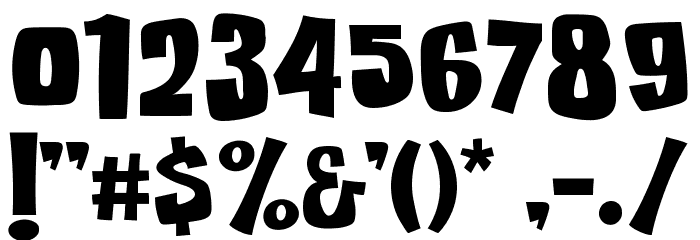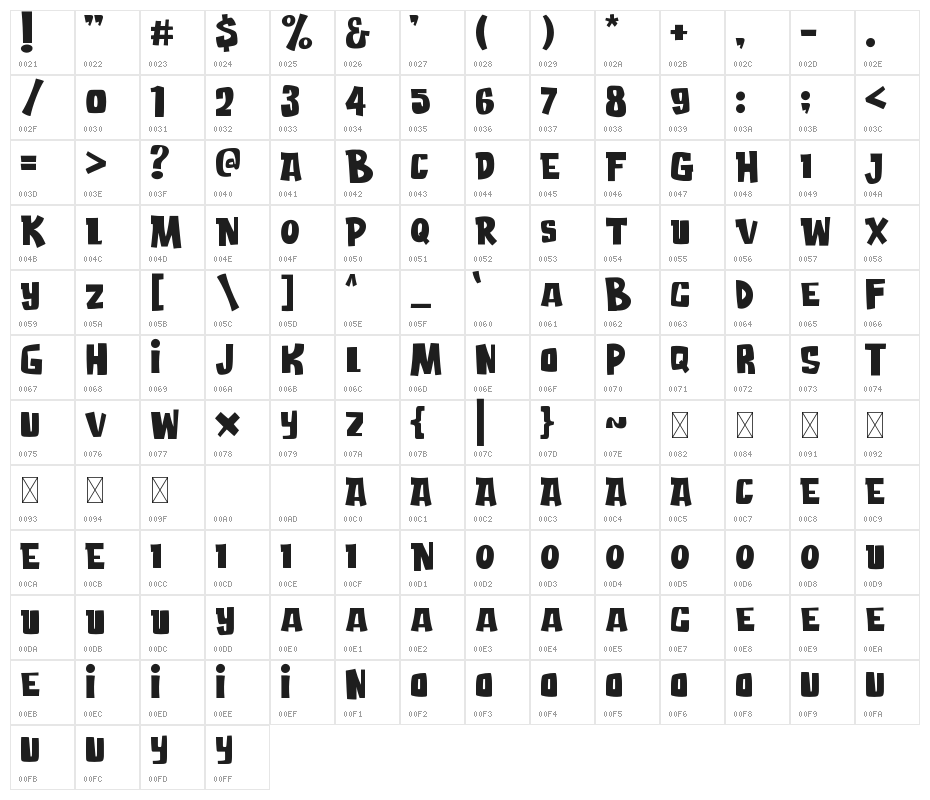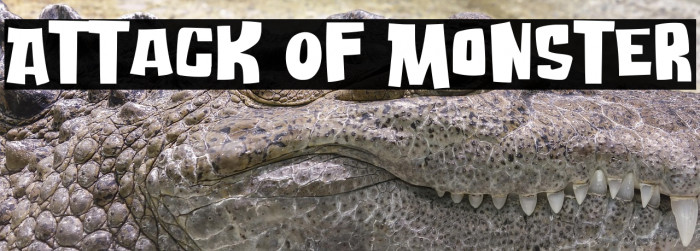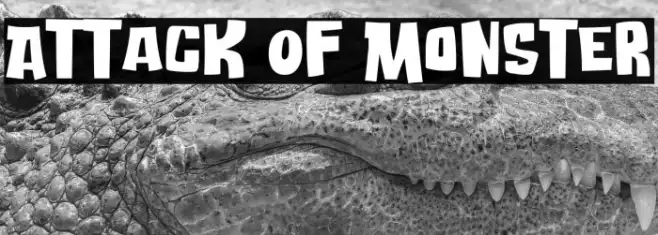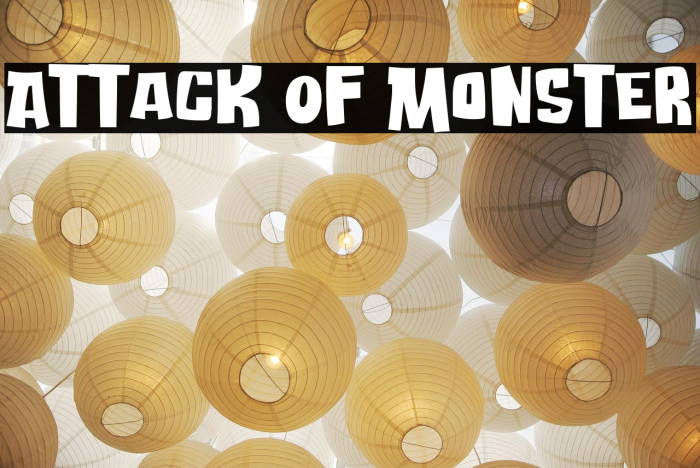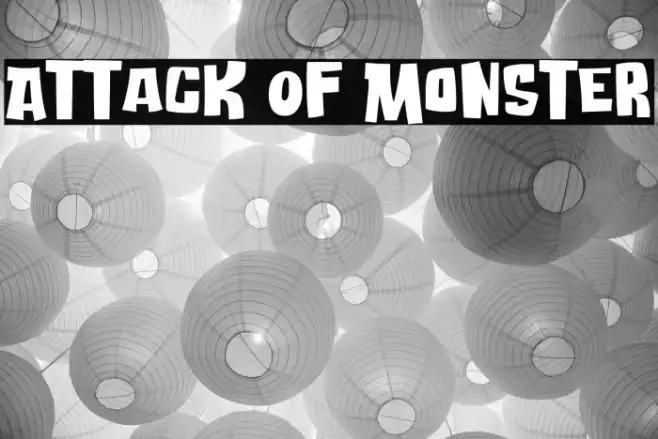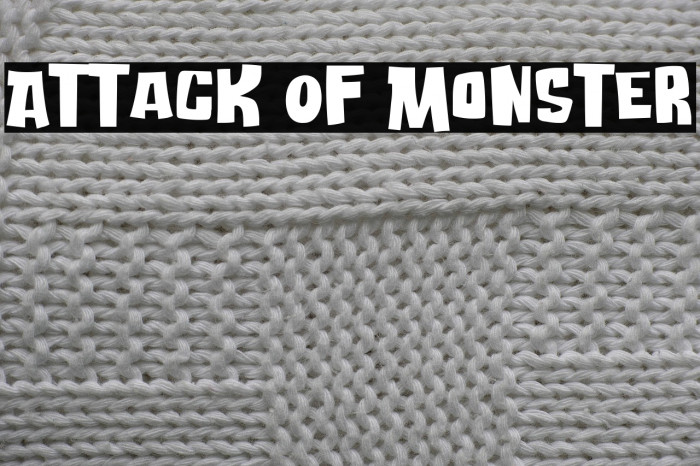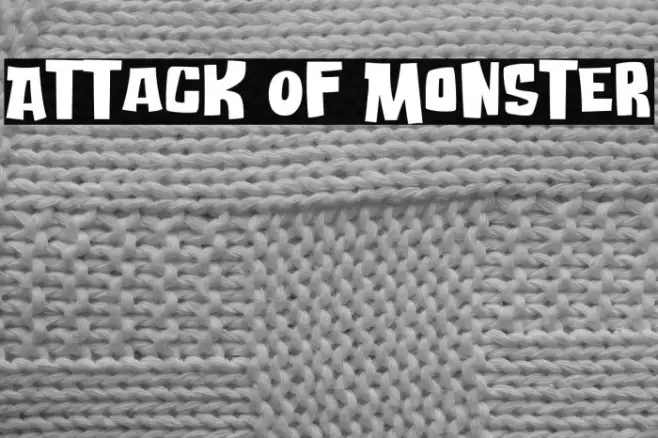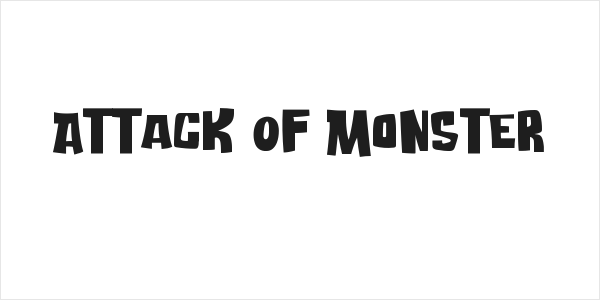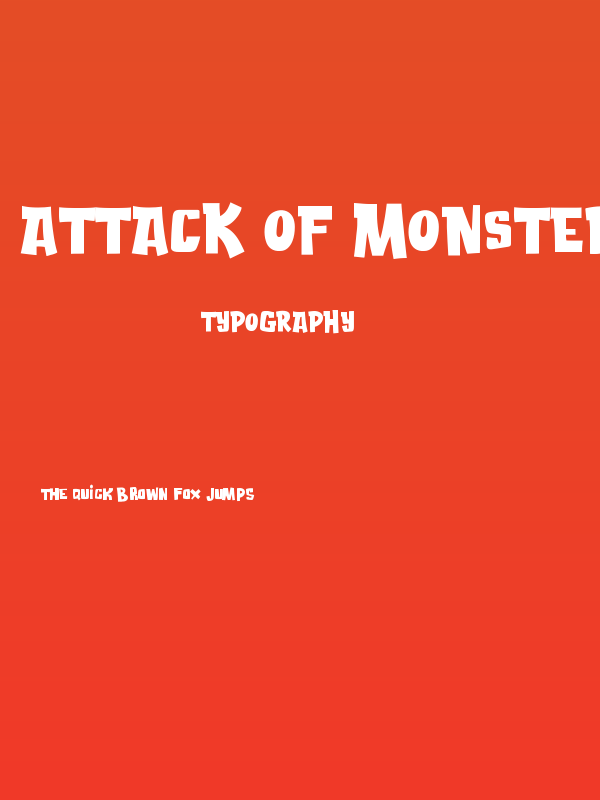
Attack Of Monster Font
Attack Of Monster Description
This font features a bold and playful design with exaggerated, uneven strokes that give it a whimsical and dynamic appearance. The characters are slightly irregular, adding a sense of movement and energy. The uppercase and lowercase letters maintain a consistent style, with thick lines and rounded edges that create a friendly and approachable look. The numbers and special characters follow the same playful theme, making the font suitable for creative and informal projects. Its unique style makes it stand out, ideal for capturing attention.
| Proposed Projects | Perfect for children's books, comic strips, playful branding, and event posters. |